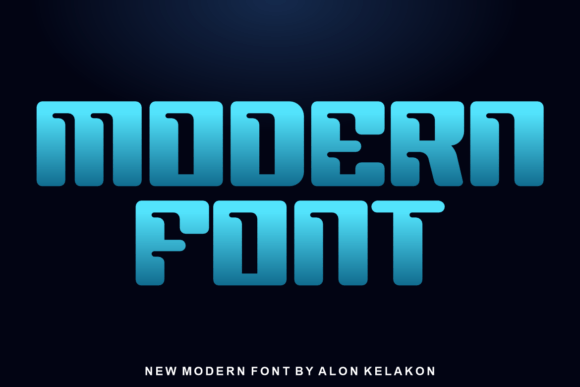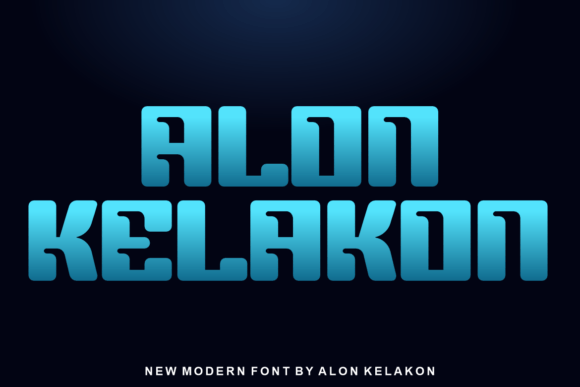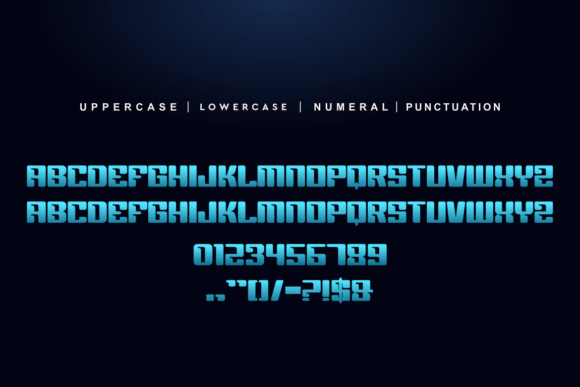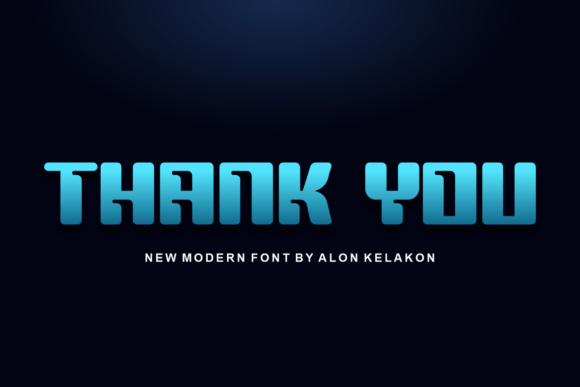
Introduction to Kazyger Font
Have you ever been stuck in a creative rut, staring at a blank screen, trying to come up with the perfect font for your project? That’s exactly where I was when I stumbled upon the Kazyger Font – a game-changer for designers.
This high-quality sans serif font is a design resource like no other, perfect for labeling, clothing, movie scenes, poster, movie title, gigs, album covers, logos, and much more. With its bold and unique style, it’s a free download that’s sure to elevate your creative project to the next level.
What sets Kazyger Font apart is its versatility – whether you need a font with a transparent background or a bold statement, this font delivers. As a designer, having access to a reliable and high-quality font like Kazyger Font can be a lifesaver, saving you time and stress in the long run.
Key Features of Kazyger Font
- High-quality design with a transparent background, perfect for creative projects requiring a modern and sleek aesthetic.
- Comes in a single weight, ideal for use in a wide range of creative projects, from logos and branding to typography and graphic design.
- Features a clean and minimalist design, suitable for use on both light and dark backgrounds, ensuring versatility and flexibility.
Honest Review: Kazyger Font
I recently stumbled upon the Kazyger Font and I must say it’s a great addition to my design resource library. The font’s high quality and versatility make it perfect for a wide range of creative projects.
One of the things that caught my attention is the transparent background, which allows for seamless integration with other design elements. This makes it a great choice for designers who need a font that can easily blend in with their design.
- Only available in a limited number of font styles
- Not suitable for projects that require a large character set
Overall, I’m impressed with the Kazyger Font and I would definitely recommend it to designers who are looking for a high-quality, versatile font for their creative projects. ⚠️ While it’s not perfect, it’s a great resource that can definitely add some value to your design library. ✨
Common Use Cases for Kazyger Font
The Kazyger Font is ideal for various creative projects, including graphic design, digital art, and typography-based designs. Its high-quality design and transparent background make it an excellent choice for presentations, documents, and web designs.